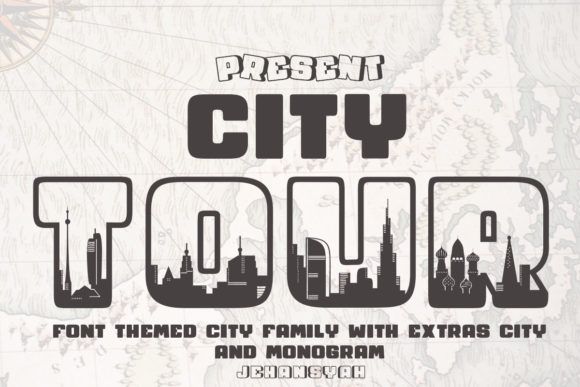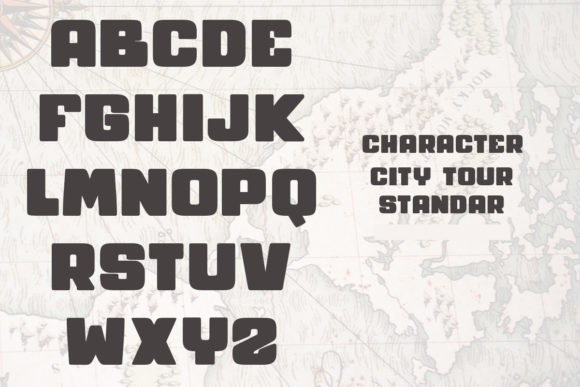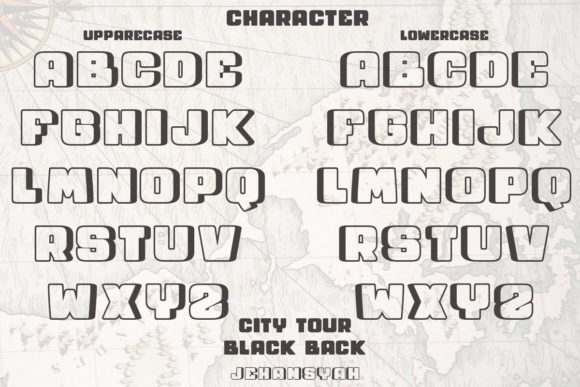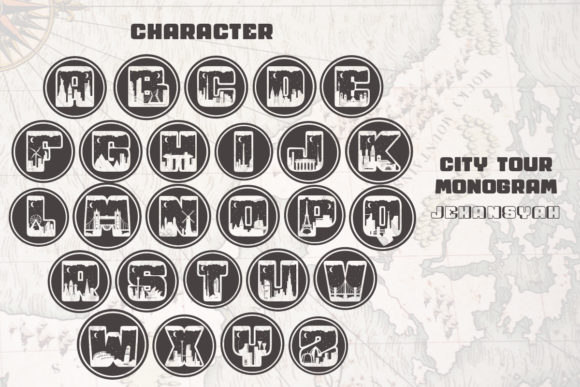
About City Tour Font
City Tour is an incredibly detailed display font with beautiful landscapes of famous cities from around the world and many font styles to choose from such as graffiti, outline, and cloud fonts. The possibilities are endless when elements are combined and will help you create a very unique design! This font will make anyone say WOW!